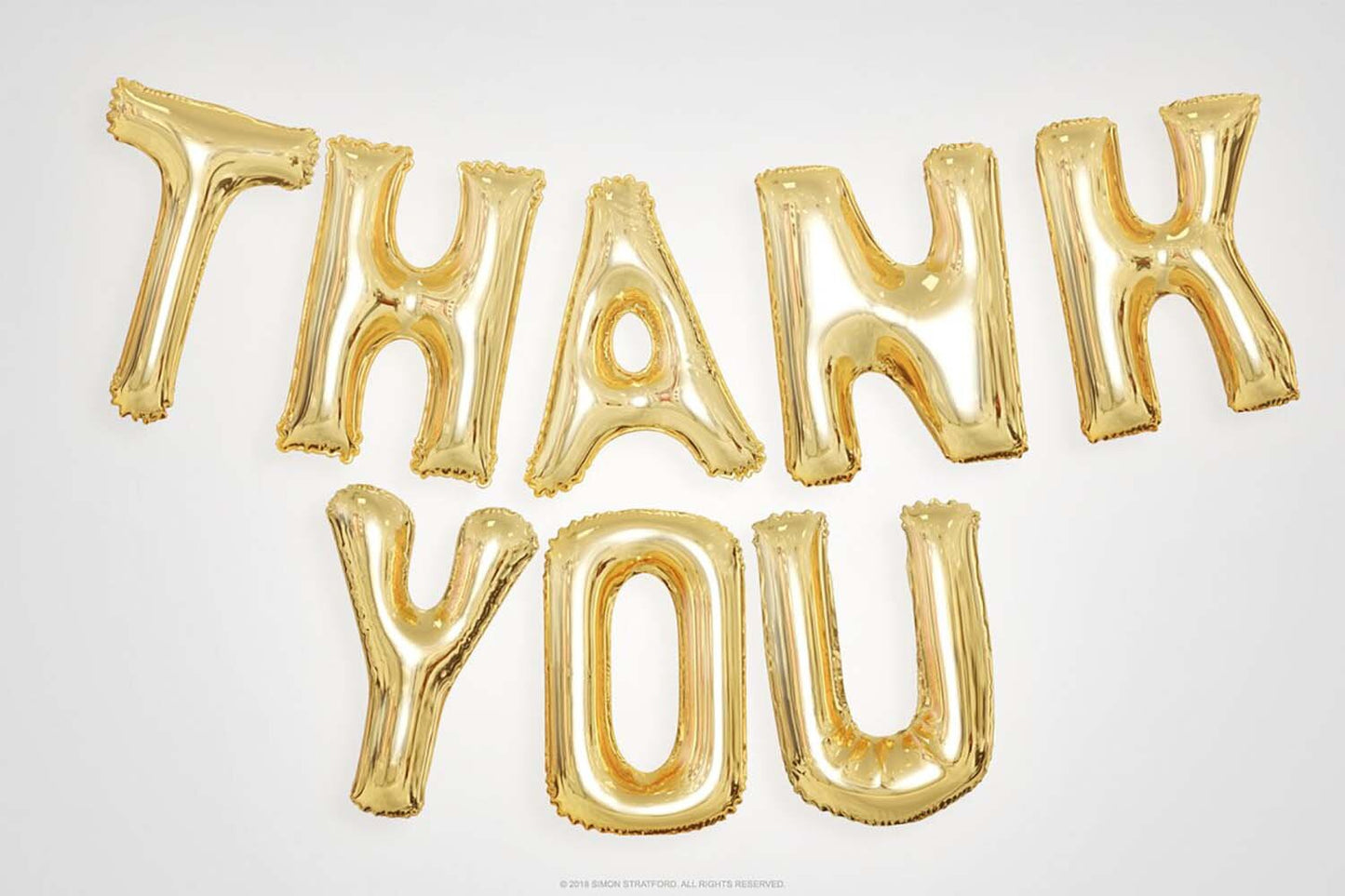
An OpenType SVG font is an OpenType font with graphical artwork embedded inside its letters. A regular OpenType font normally contains a single-colour outline. OpenType SVG can include multiple colours, gradients, texture, images and transparency while remaining editable as text. In short: it behaves like a font but can look like finished artwork.
Short answer: regular OpenType gives you the shape of the letter. OpenType SVG can give you the shape, colour, texture and lighting all at once.
Typography finally learned a second colour.
Then it got carried away.
OpenType SVG versus regular OpenType
| Feature | Regular OpenType font | OpenType SVG font |
|---|---|---|
| Basic construction | Vector letter outlines | OpenType font containing embedded SVG artwork |
| Colour | Usually one colour selected in your software | Can contain several built-in colours |
| Gradients | Added separately | Can be built into each character |
| Texture | Added with effects, masks or images | Can be included inside the font |
| Transparency | Controlled by the application | Can exist inside individual glyphs |
| Text editing | Fully editable | Fully editable in supporting applications |
| Changing colour | Normally straightforward | Built-in colours usually cannot be changed with the standard text colour control |
| File size | Usually relatively small | Often larger because it contains more graphical information |
| Software support | Very broad | Depends on the application and version |
| Best use | Body copy, branding and general typography | Headlines, posters, packaging and expressive display work |
What does OpenType SVG actually mean?
OpenType is the font format. SVG stands for Scalable Vector Graphics.
An OpenType SVG font is still an OpenType font. The difference is that it contains an additional SVG table holding graphical artwork for some or all of its glyphs.
That artwork can contain:
- Multiple colours
- Gradients
- Transparency
- Shading
- Texture
- Detailed graphical effects
The result can look more like hand-painted lettering, printed ink, chrome, watercolour or photographic artwork than a conventional digital typeface.
According to the Microsoft OpenType specification, the SVG table allows fonts to carry scalable colour graphics within an OpenType file.
Why do some fonts have built-in colours?
In a regular font, the file supplies the letter shape. Photoshop, Illustrator or another application then fills that shape with whichever colour you choose.
An OpenType SVG colour font works differently. The appearance is already part of the glyph artwork.
A letter might contain blue paint, a white highlight, a dark shadow and transparent areas. Those elements are stored inside the font rather than created afterwards with layer effects.
It is rather like the difference between receiving an empty colouring-book outline and receiving the finished painting.
One offers more control. The other saves you an afternoon.
How do I identify an OpenType SVG font in Photoshop?
Photoshop displays a small OpenType SVG icon beside compatible fonts in the font menu.
To use one:
- Select the Type tool
- Create a text layer
- Choose a font carrying the OpenType SVG icon
- Type normally
- Open Window > Glyphs to see any additional characters or stylistic alternatives
The text remains editable. You can change the wording, size, tracking and alignment without first converting the letters into images.
Adobe’s current OpenType SVG guide for Photoshop confirms that the format supports multiple colours, gradients and transparency while retaining editable text.
Can I change the colours in an OpenType SVG font?
Usually, not with the normal text colour control.
The colours are part of the embedded artwork, so selecting the text and clicking a new colour swatch may do nothing. Photoshop is not being difficult for once. There is simply more information inside the glyph than a single fill colour.
Some OpenType SVG fonts include alternative colour versions through the Glyphs panel. Others are deliberately supplied with one fixed appearance.
If changing the colour is important, check before buying:
- Whether alternative colour glyphs are included
- Whether a separate single-colour font is supplied
- Whether the artwork can be edited after conversion
- Whether the typeface was designed for light or dark backgrounds
Do OpenType SVG fonts work on dark backgrounds?
Yes, but the result depends on the font.
Transparent areas inside the glyph allow the background to show through. This can look excellent when the font was designed with transparency in mind.
Problems arise when the built-in artwork contains dark shadows or colours that disappear against a dark background. The font is working. The contrast isn’t.
If an OpenType SVG font looks wrong on a dark background:
- Try it on a light or neutral background
- Check the Glyphs panel for a lighter alternative
- Add a subtle backing shape behind the text
- Avoid using a colour overlay to force a completely different appearance
- Test the font at the final size rather than judging it while zoomed in
Not every colour combination deserves to live together.
Can I apply Photoshop layer styles?
You can apply effects to the text layer, but the embedded artwork remains inside the glyph. A colour overlay, gradient or stroke may therefore behave differently from the same effect applied to regular monochrome text.
If you need more predictable control:
- Keep an untouched editable copy of the text layer
- Duplicate the layer
- Convert the duplicate into a Smart Object or raster layer
- Apply your effects to the duplicate
This gives you more freedom while preserving an editable version in case the client changes the headline six minutes before delivery.
They will.
Can OpenType SVG text be converted into outlines?
Be careful here.
Adobe states that using Type > Convert to Shape on an OpenType SVG font in Photoshop can make the characters revert to their black-and-white fallback outlines.
That happens because the command converts the traditional outline data rather than preserving all the embedded colour artwork.
If you need to preserve the exact appearance, duplicate the text and convert the copy into a Smart Object or raster layer instead. Keep the original editable text hidden inside the document.
Are OpenType SVG fonts vector or bitmap?
They can be either—or occasionally a mixture.
A vector-based OpenType SVG font uses scalable paths, colours and gradients. It can normally be enlarged without losing sharpness.
Some highly textured or photorealistic fonts use embedded raster imagery inside the SVG artwork. These can reproduce real paint, ink, fabric and photographic detail, but they may have a maximum recommended size.
SVG in the name does not automatically guarantee that every visible detail is a vector.
Check the product description if you intend to put the lettering on the side of a building.
Why are OpenType SVG files larger?
A regular font mostly stores outlines and instructions. An OpenType SVG font may also contain colour, texture, gradients, transparency and detailed artwork for hundreds of characters.
More information means a larger file.
Vector colour fonts can still be reasonably compact. Fonts containing high-resolution bitmap artwork can be considerably larger.
That does not matter much when designing a poster in Photoshop. It matters more when sharing files, loading fonts on websites or working on older hardware.
Can I use an OpenType SVG font on a website?
Possibly, but check three things first:
- Browser support: not every browser or device handles every colour-font format in exactly the same way
- File size: a detailed SVG font can be too large for sensible web use
- Licensing: a desktop licence does not automatically include webfont use
For a website heading, a standard WOFF or WOFF2 fallback may be more reliable. For a logo or decorative graphic, exporting the finished lettering as an image may sometimes be the more practical option.
The exciting answer is “use the clever font technology”.
The useful answer is “test it first”.
Where can I use OpenType SVG fonts?
Current versions of major Adobe applications support OpenType SVG, including Photoshop, Illustrator and InDesign. Support outside professional design software varies, so always check the application and version you intend to use.
OpenType SVG fonts are best suited to:
- Posters and headlines
- Packaging design
- Album and entertainment artwork
- Editorial covers
- Fashion and streetwear graphics
- Social media campaigns
- Expressive branding
They are display fonts. They want attention.
Using one for the small print on an insurance form would be brave.
OpenType SVG buying checklist
Before buying an OpenType SVG font, ask:
- Does my software support it?
- Is the font vector, bitmap-based or a mixture?
- Does it include a regular monochrome version?
- Can I change its colours?
- Does it include alternative glyphs?
- Will it work on both light and dark backgrounds?
- What is its maximum recommended size?
- Does the licence cover my intended use?
- Is webfont use included?
Five minutes checking now saves several hours of creative swearing later.
When should I choose OpenType SVG?
Choose a regular OpenType font when you need maximum compatibility, simple colour control, small files or lots of body text.
Choose OpenType SVG when the lettering itself needs to carry colour, texture and personality without building every effect from scratch.
Neither format is better at everything.
One is a very good set of letter shapes.
The other arrives already dressed for the occasion.
Explore OpenType SVG fonts
I create OpenType SVG fonts with real colour, texture and handmade detail for branding, packaging, posters and display work.
Some are built from paint. Others use ink, print and deliberately imperfect materials.
Because perfect vector letters already have enough people making them.
Frequently asked questions
What is an OpenType SVG font?
An OpenType SVG font is an OpenType font containing embedded SVG artwork. This allows individual letters to include multiple colours, gradients, texture and transparency while remaining editable as text in compatible software.
What is the difference between OpenType SVG and regular OpenType?
A regular OpenType font normally provides monochrome letter outlines that your software fills with one colour. OpenType SVG can store a complete graphical appearance inside each glyph, including several colours and visual effects.
Why do OpenType SVG fonts show a different icon in Photoshop?
The icon identifies fonts containing SVG colour artwork. It tells you the font can display more graphical information than a standard monochrome OpenType font.
Can I recolour an OpenType SVG font?
Usually not through the standard text colour control because the colours are embedded in the glyph artwork. Some fonts provide alternative colour versions through the Glyphs panel.
Do OpenType SVG fonts remain editable?
Yes. In supporting applications, you can edit the wording, size, spacing and alignment like ordinary text. Converting the text into shapes or pixels can remove that editability.
Do OpenType SVG fonts work in Photoshop?
Yes. Current versions of Photoshop support OpenType SVG fonts. Select a compatible font from the font menu and use the Glyphs panel to access any alternative characters.
Will OpenType SVG fonts print correctly?
They can print correctly from supporting software, but test the final artwork before production. Fonts containing raster textures also need sufficient embedded resolution for the intended print size.
Is an SVG font the same as an OpenType SVG font?
People often use “SVG font” as shorthand, but OpenType SVG is more precise. It is an OpenType font containing an SVG table, rather than a loose collection of SVG letter files.